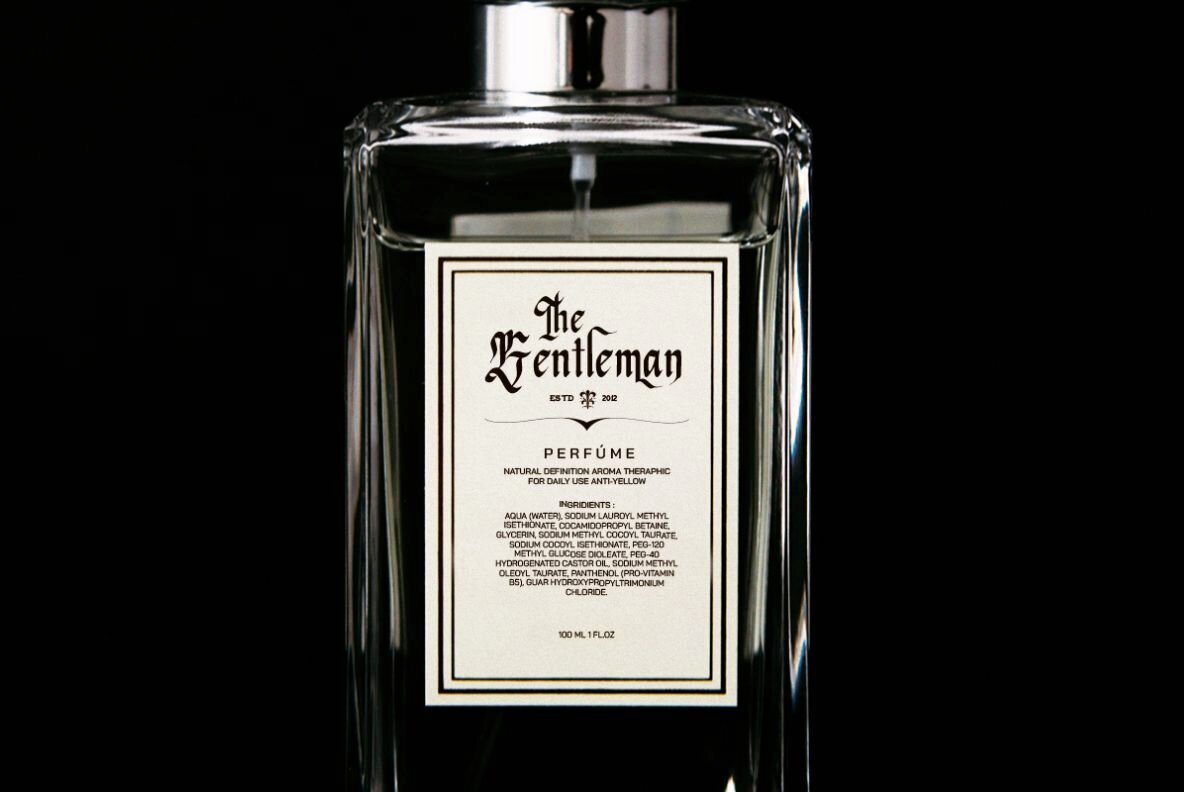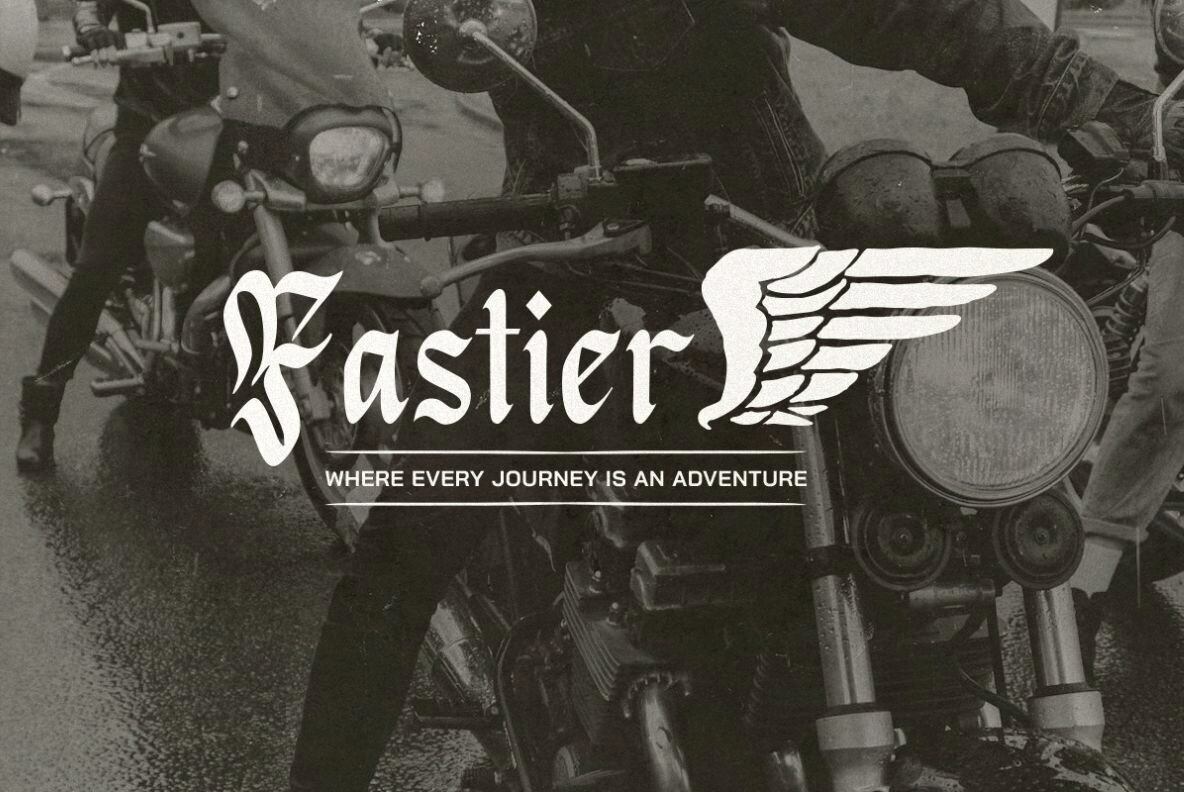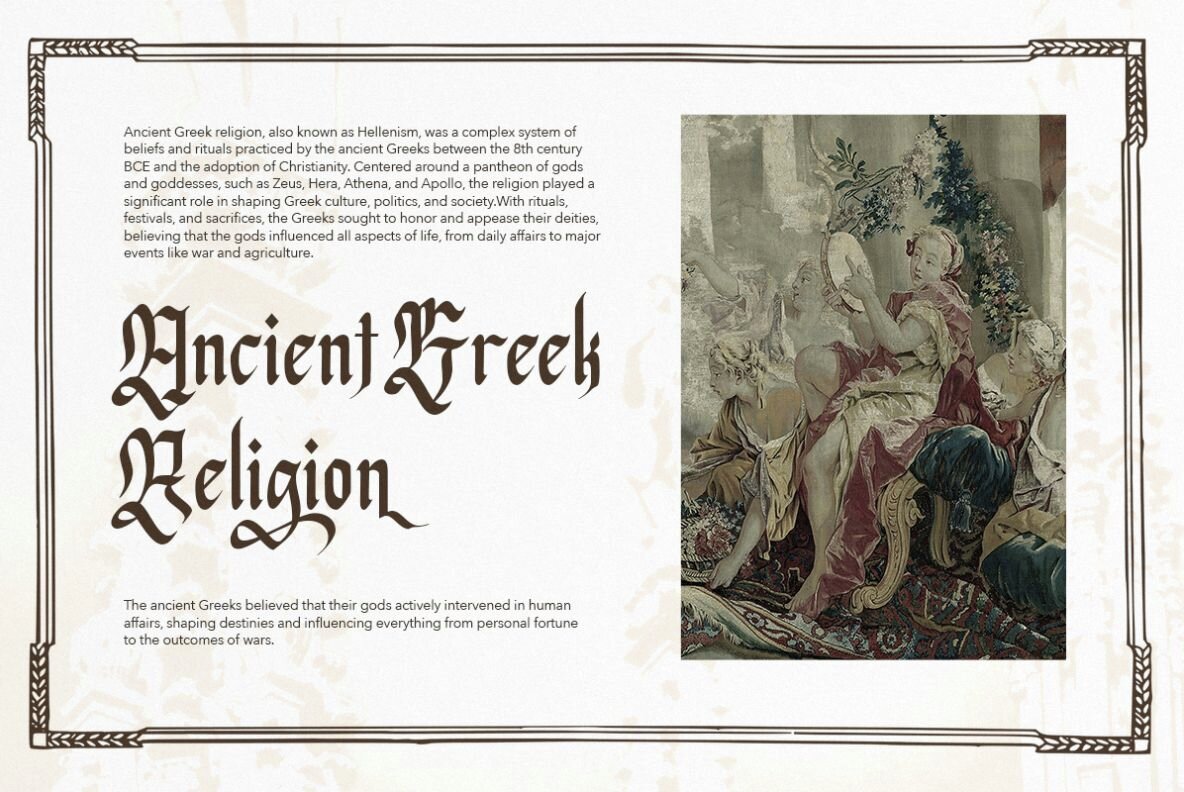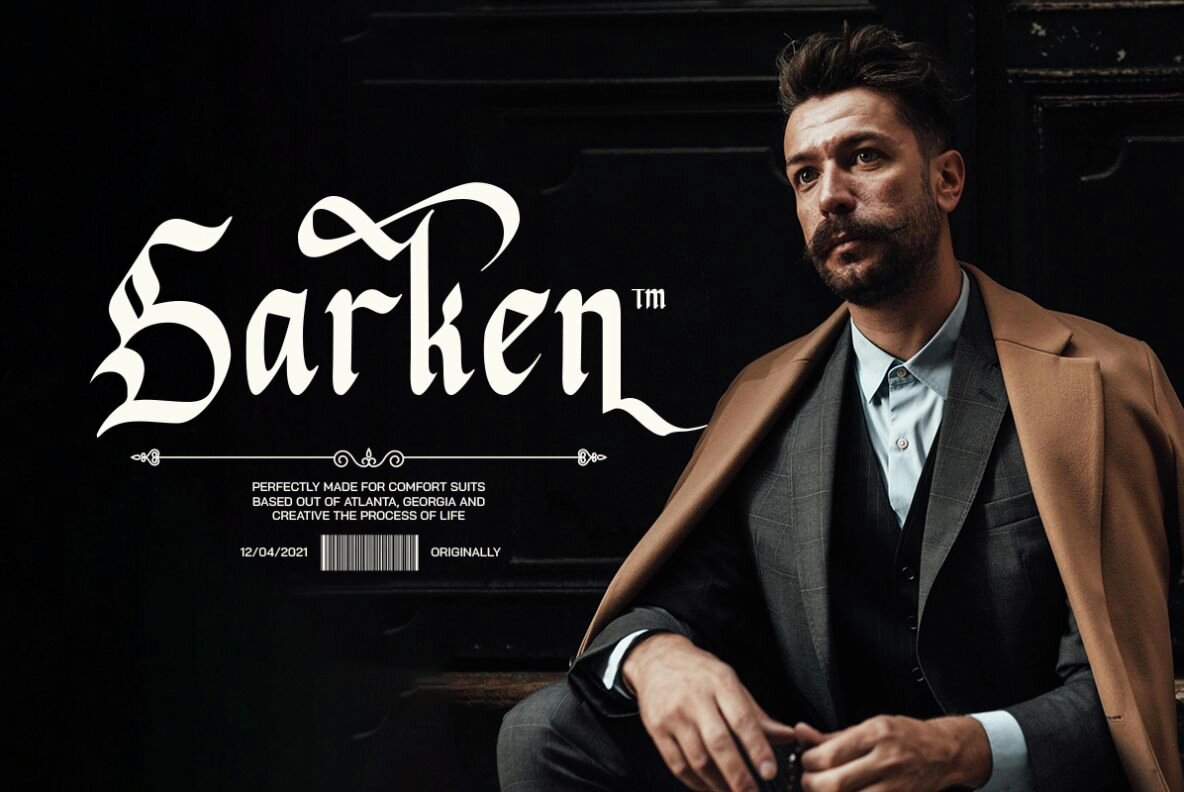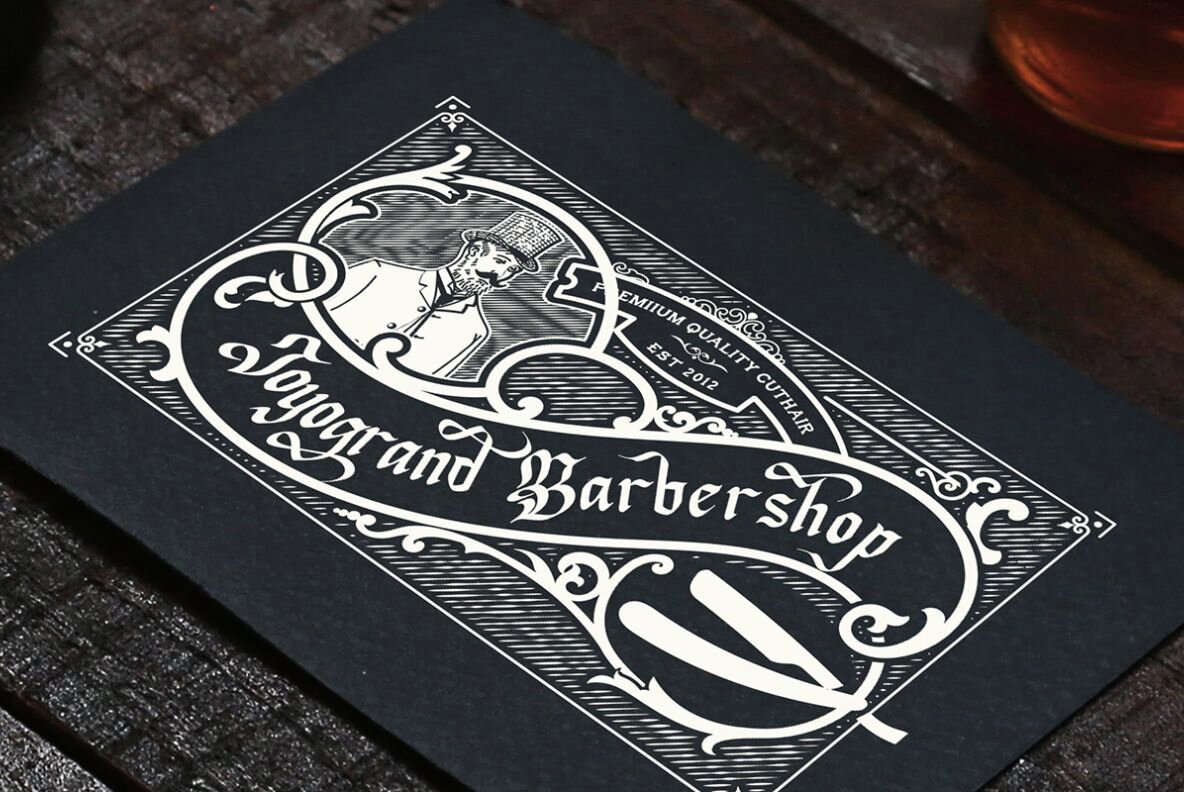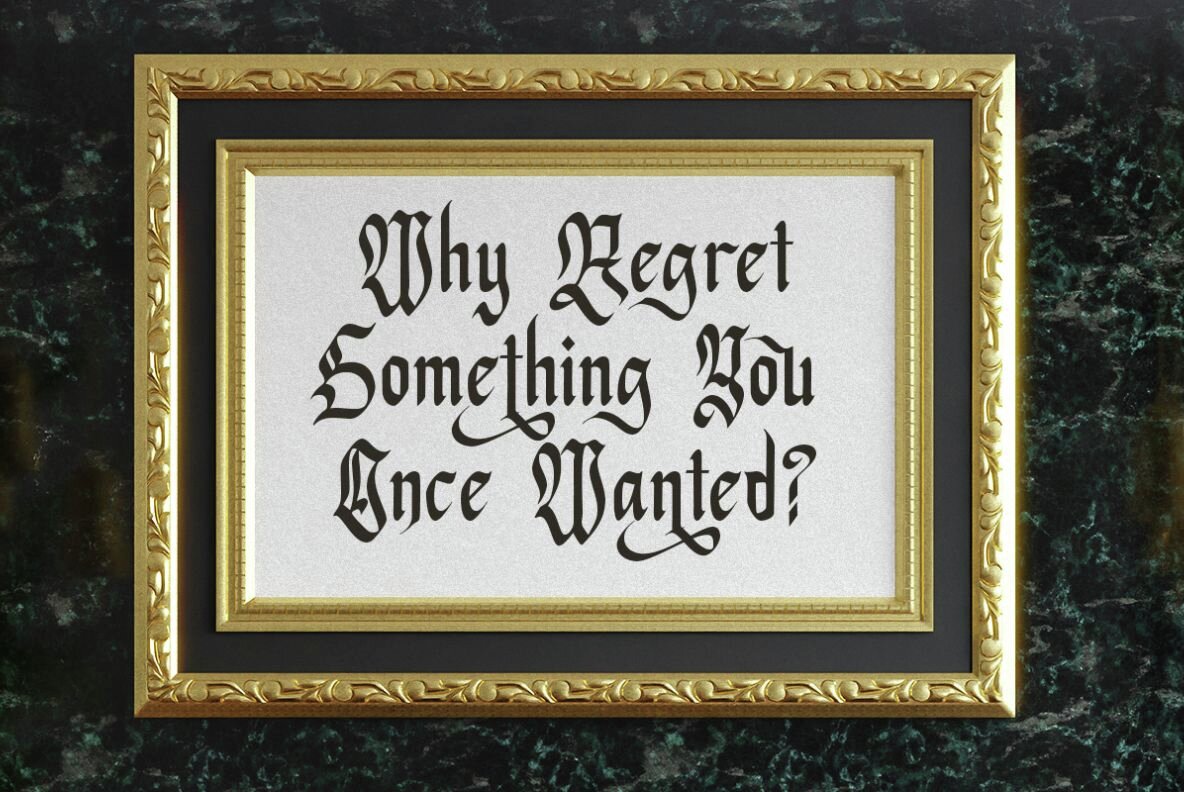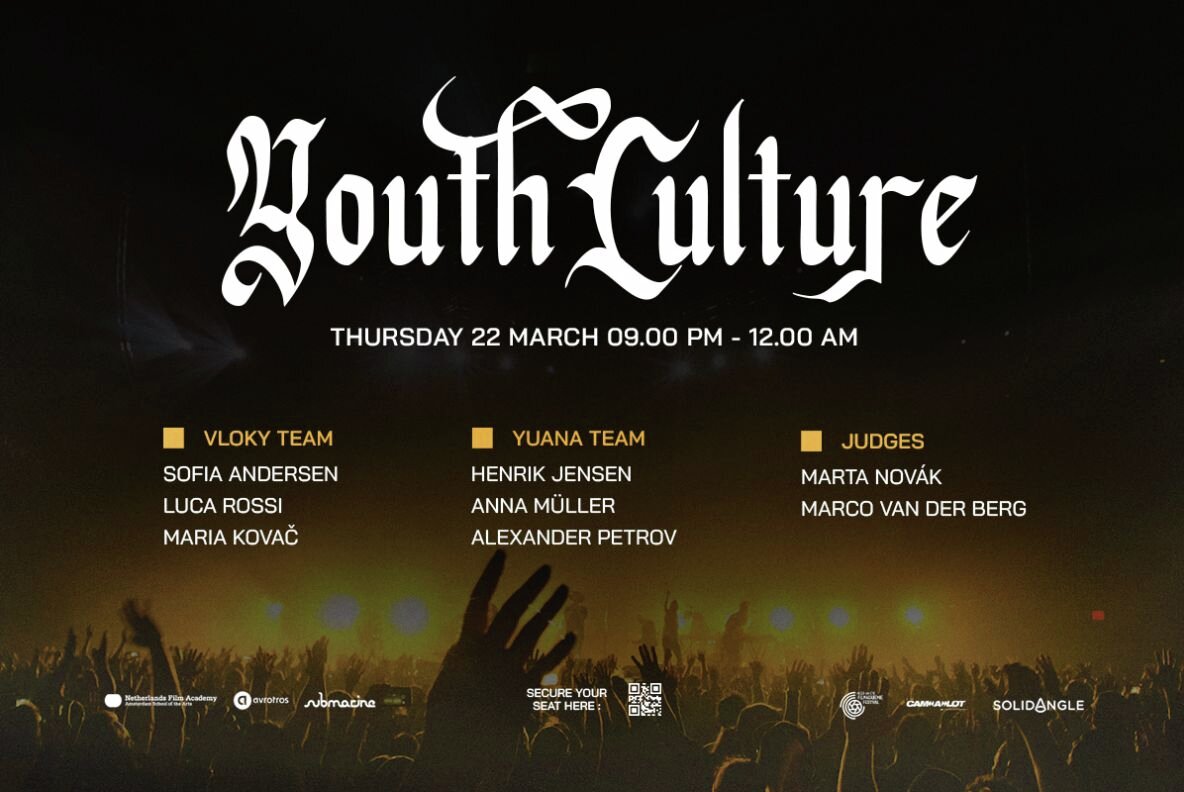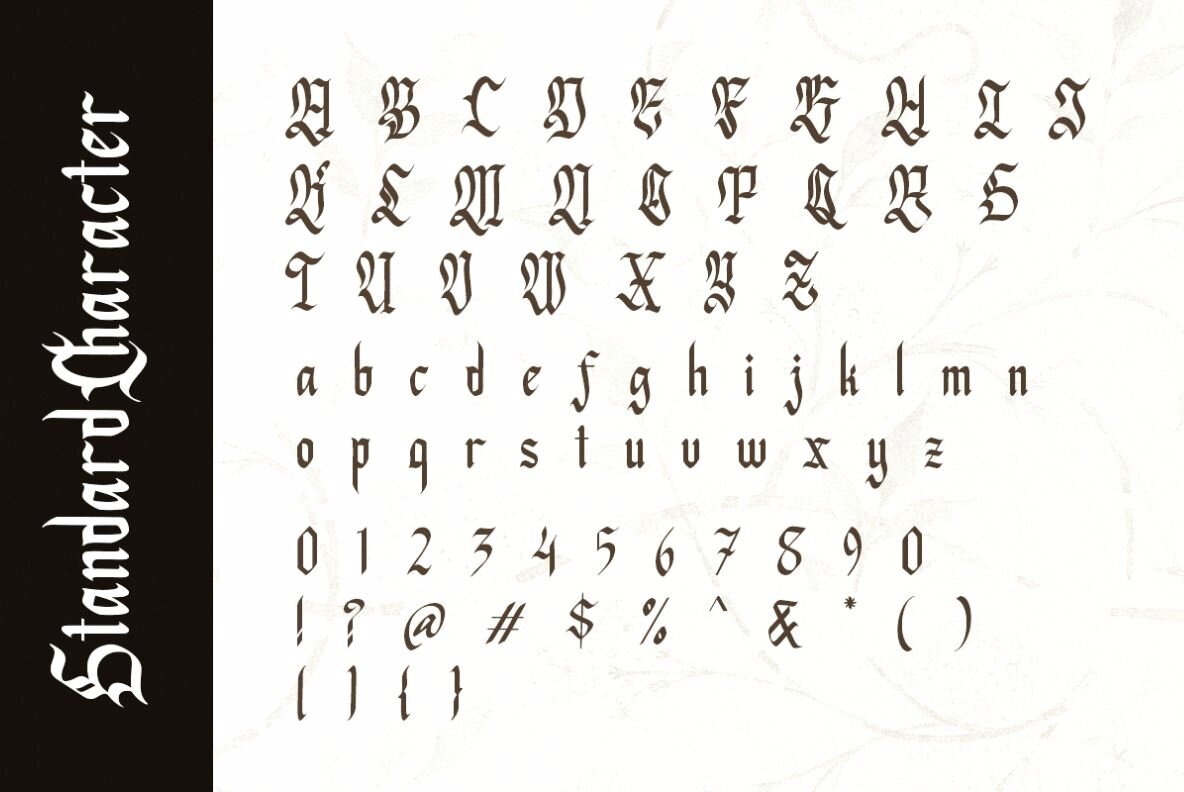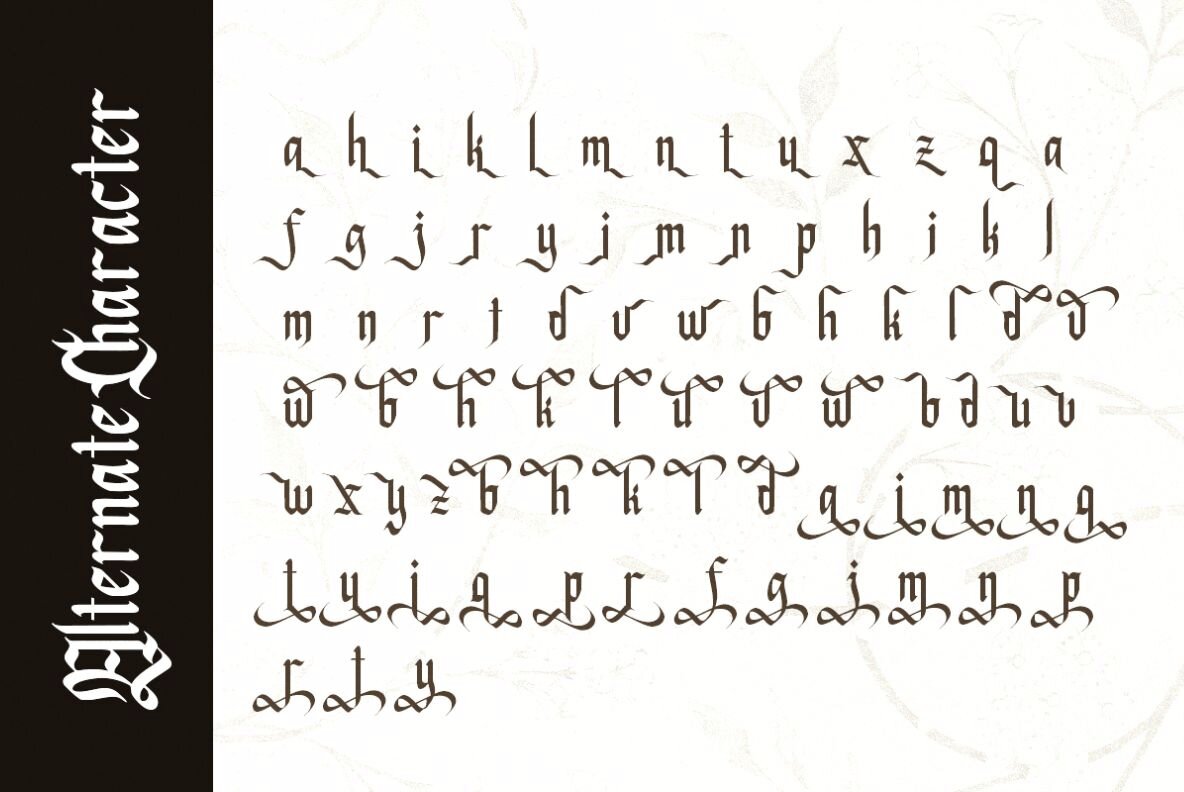
Blank Night Font
Blank Night Regular
Blank Night is a modern Blackletter font that brings a touch of retro and vintage style to your designs. Perfect for projects that require a classic or nostalgic feel, this font is an excellent choice for quotes, album covers, logos, or movie posters. Its stylish alternates add versatility, allowing you to tailor your designs to specific needs.
This font supports multiple languages, making it a flexible option for a diverse range of projects. Whether you’re crafting a standout logo or designing a captivating movie poster, Blank Night provides the timeless elegance of Blackletter with a contemporary twist. This font enriches your designs with its unique style and comprehensive language support.